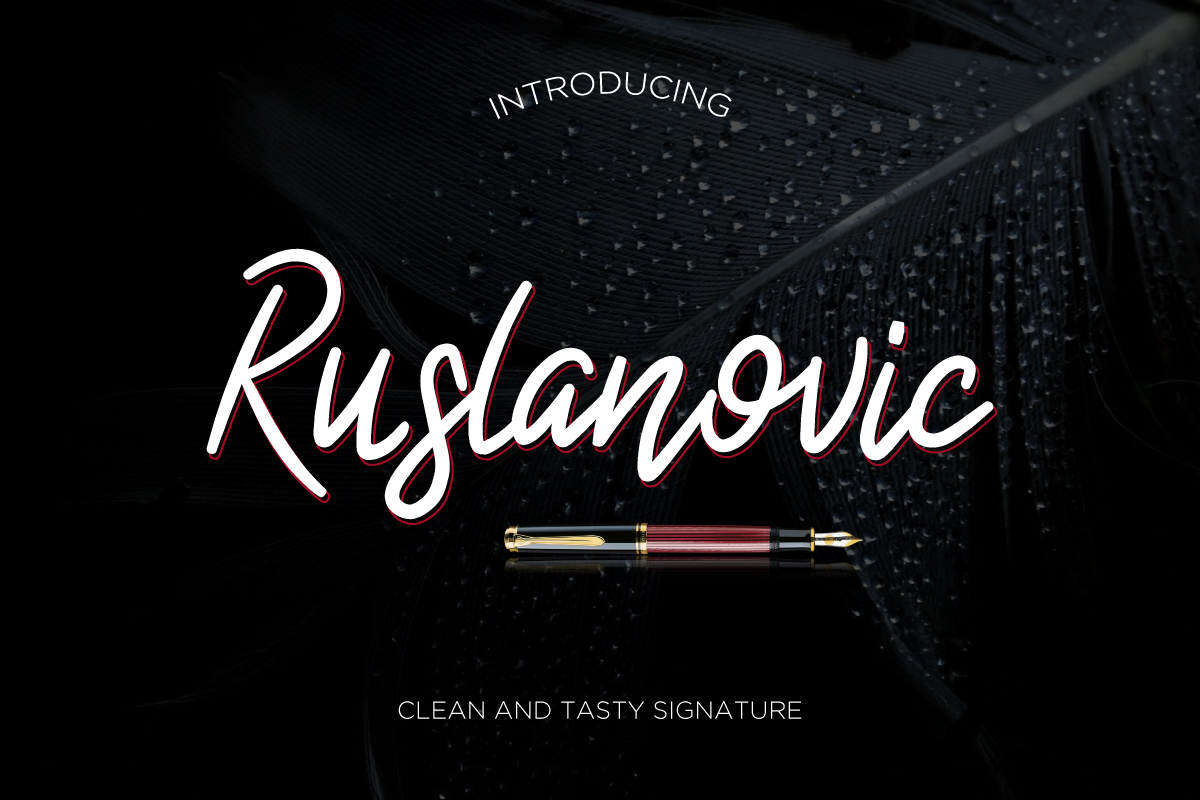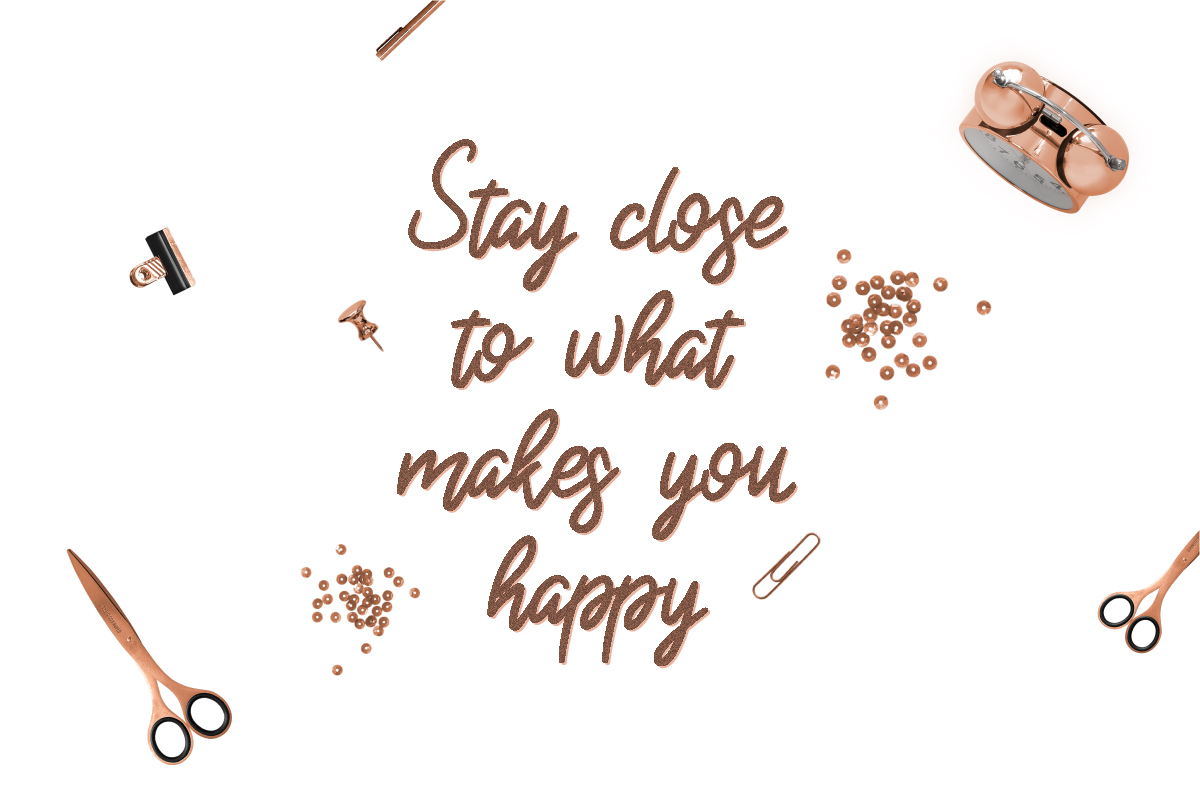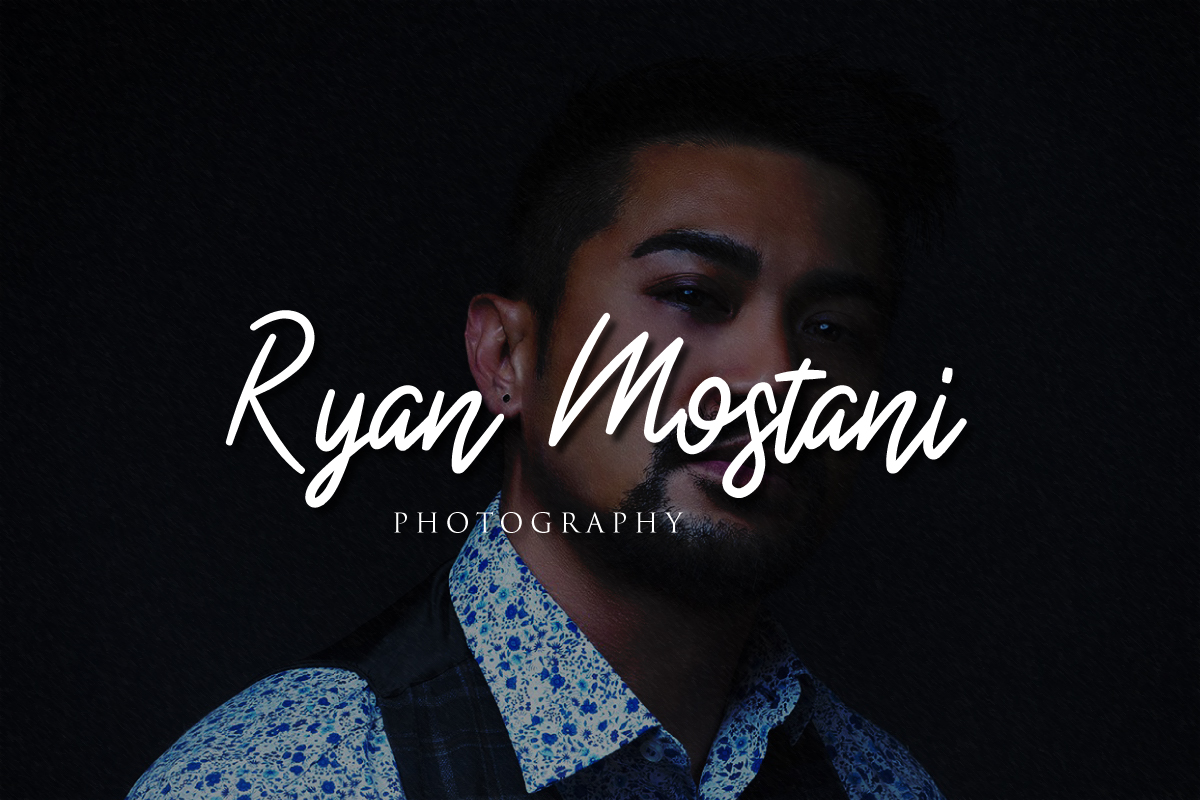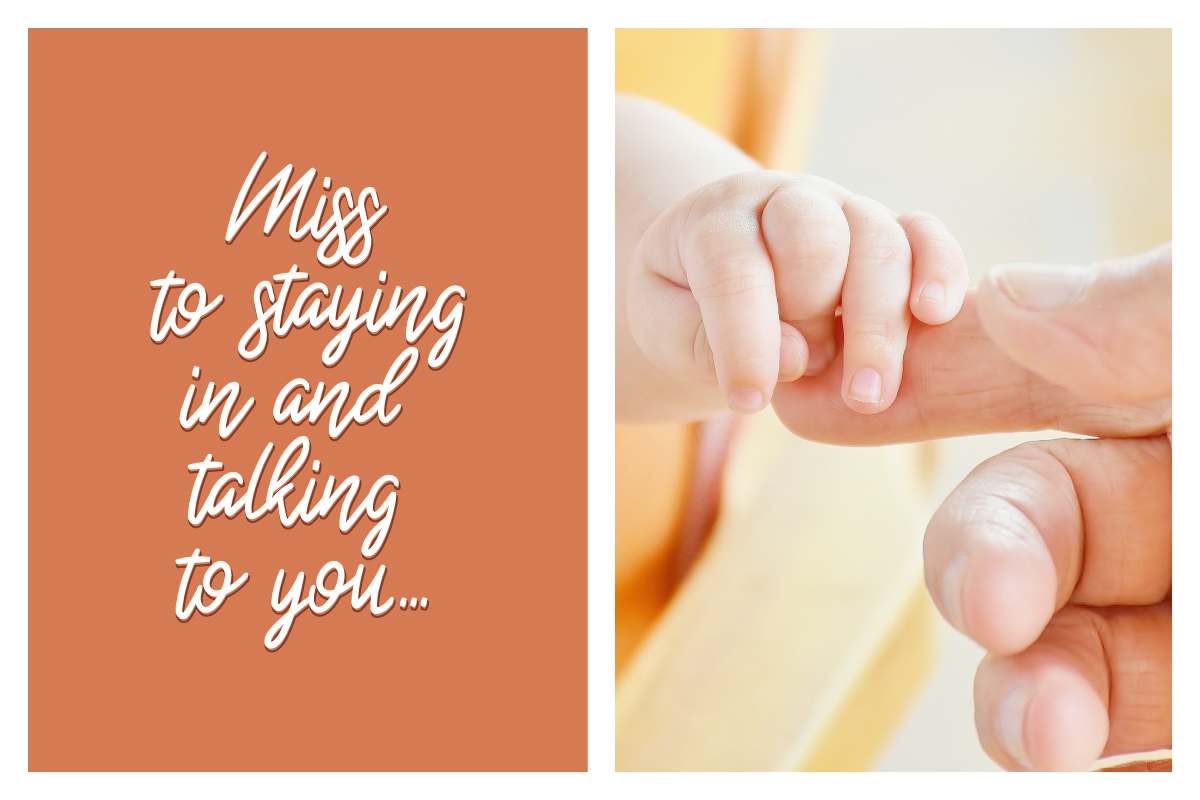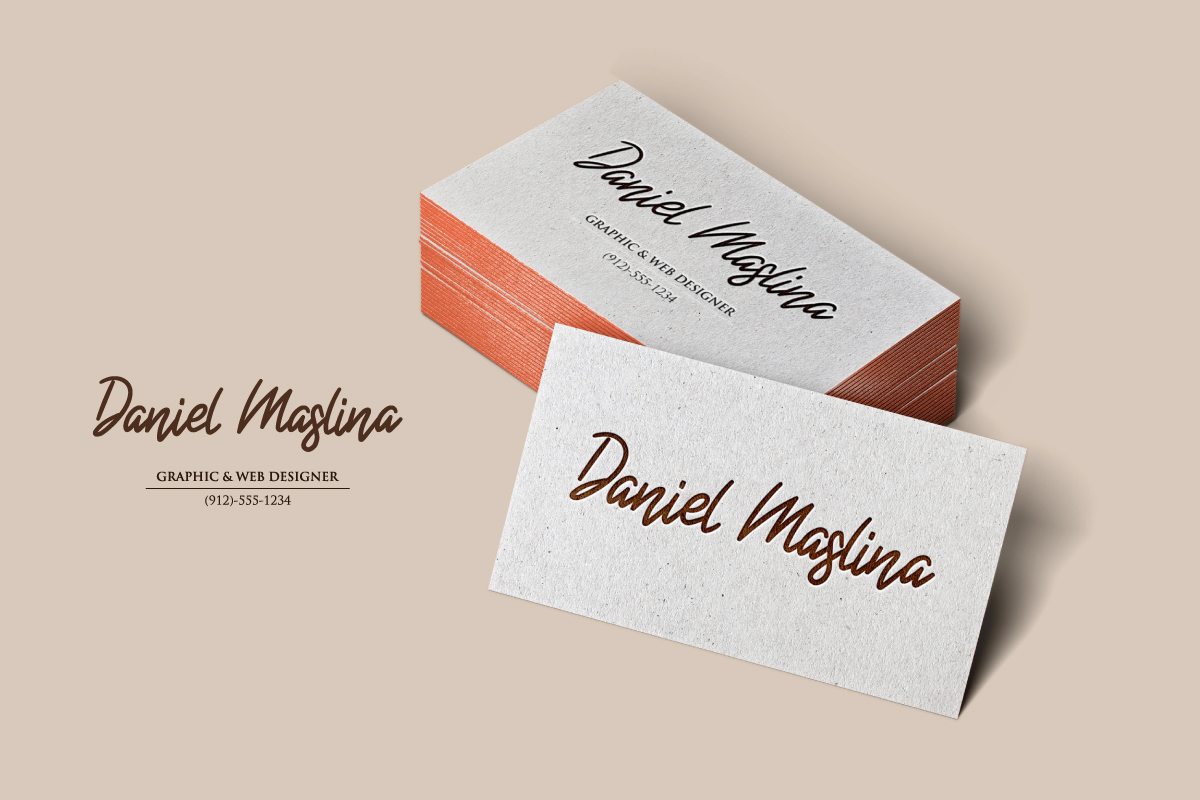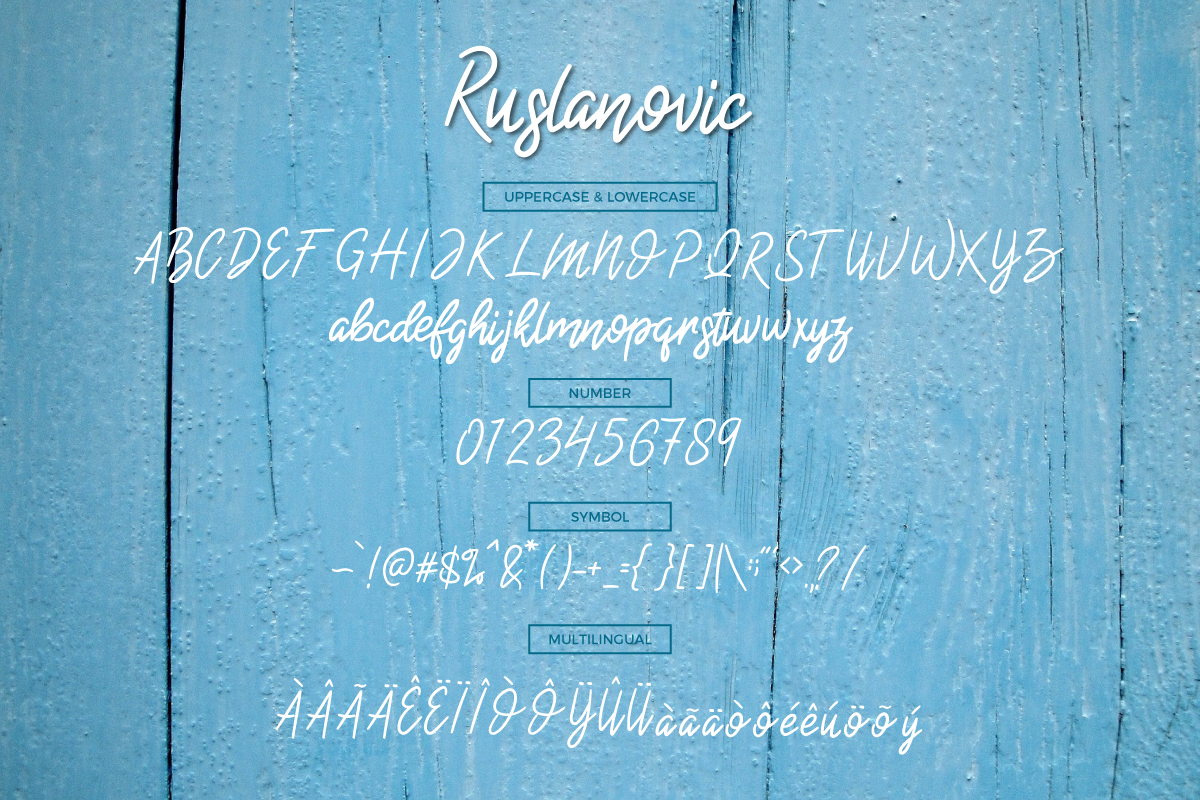
Ruslanovic Font
About Ruslanovic Font
Ruslanovic is a fresh, unique script. With variable line heights and rounded edges, Ruslanovic is a wonderfully refreshing script option that is neither romantic nor frilly.